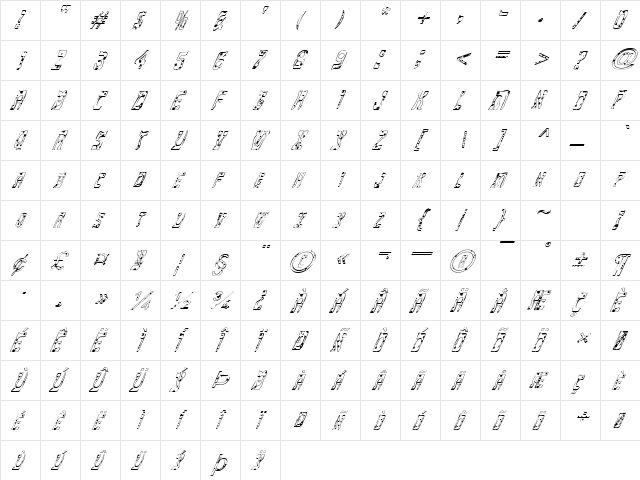
FZ UNIQUE 27 SPOTTED ITALIC Normal Font Preview
FZ UNIQUE 27 SPOTTED ITALIC Normal
Design Context for FZ UNIQUE 27 SPOTTED ITALIC Typeface
FZ UNIQUE 27 SPOTTED ITALIC is a composed and adaptable typeface that performs quietly and consistently across a wide range of design contexts. Its italic angle brings a sense of urgency and motion to the letterforms.
Pro Tip: Try FZ UNIQUE 27 SPOTTED ITALIC for annotation and caption copy alongside an upright companion — the contrast in angle creates a dynamic but ordered typographic system.